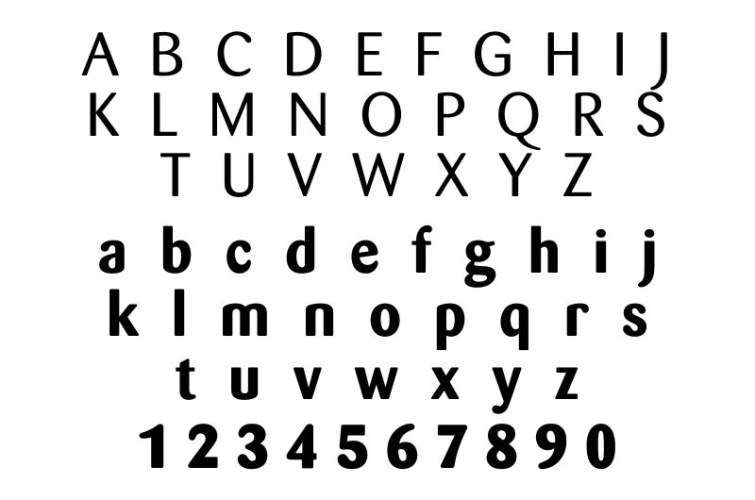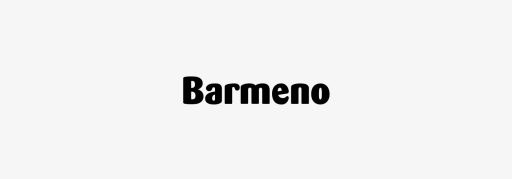
Barmeno Font
Barmeno is a friendly sans serif font with rounded shapes and a soft, inviting style. Its smooth curves and clean structure make it ideal for branding, packaging, signage, and modern display work. Designers choose Barmeno when they want a warm, approachable, and contemporary look that stands out with clarity and personality.
Barmeno Font stays legible at small sizes, which makes it a strong choice for navigation, buttons and dashboards in web design and app interfaces.
Clean sans serifs like Barmeno Font are the default language of SaaS, fintech and product branding.
Barmeno Font is a Sans Serif Fonts typeface tagged Clean, Friendly, Humanist, Modern. It works well for headlines, logos, posters, social media graphics and branding projects that need a distinctive sans serif fonts look.